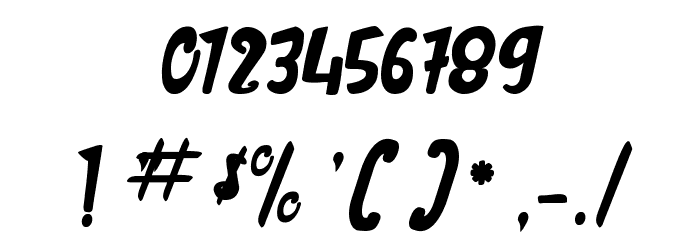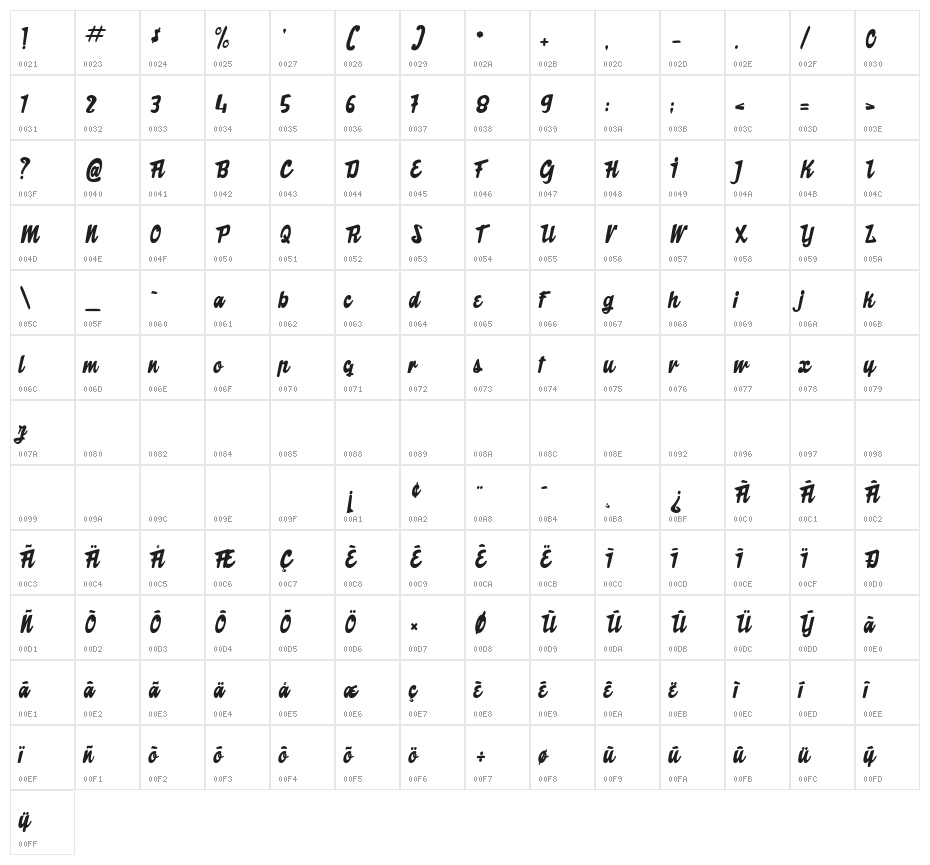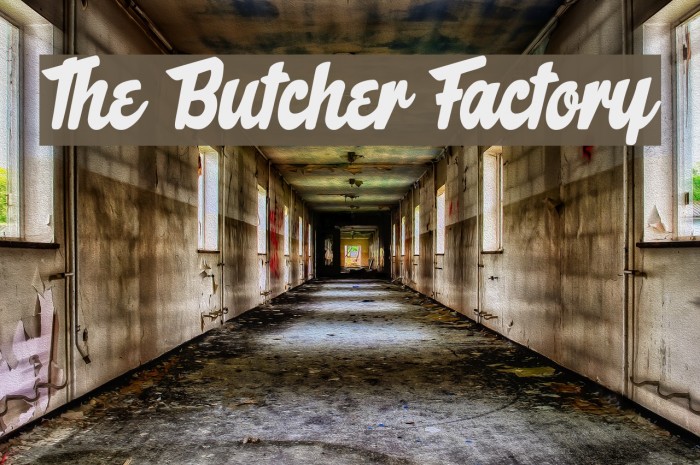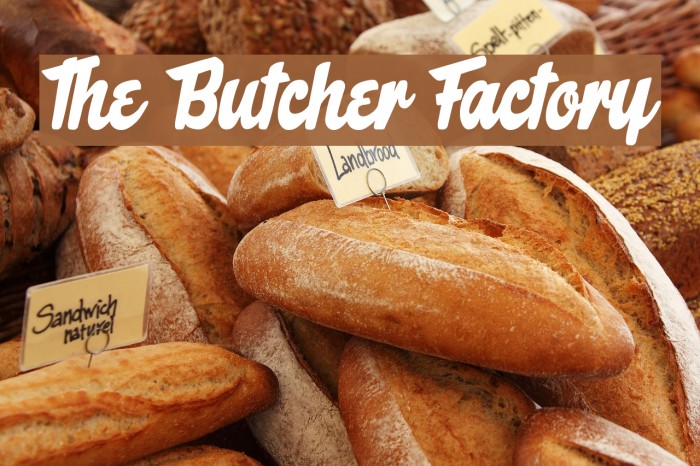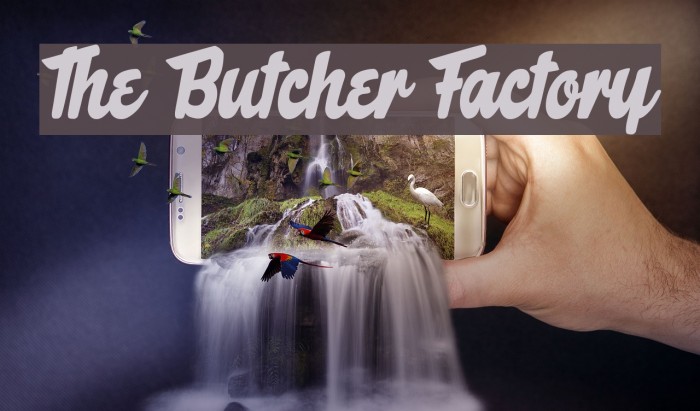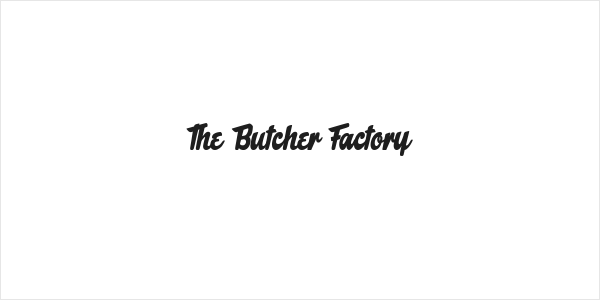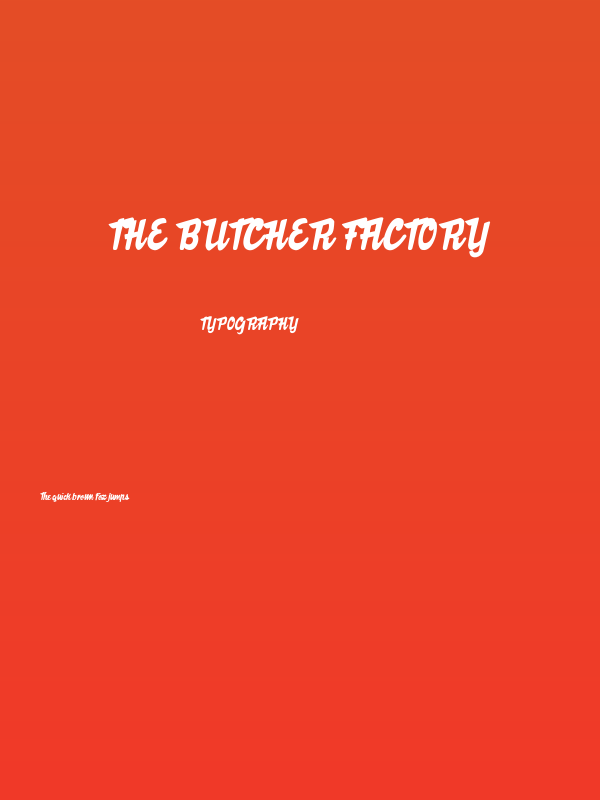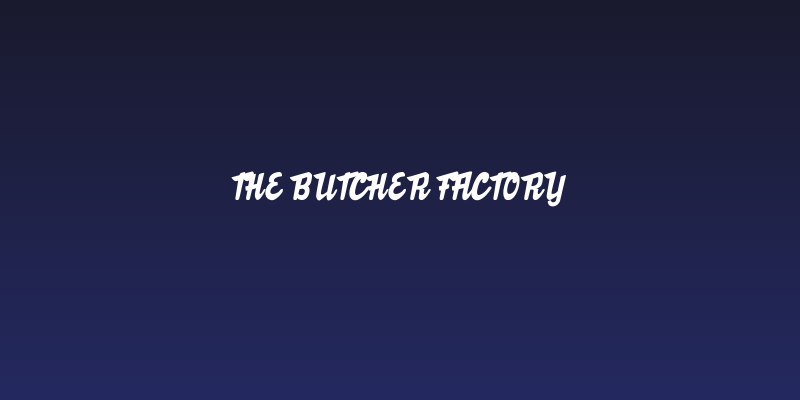
The Butcher Factory Font
The Butcher Factory Description
This font features a bold and dynamic script style with a strong presence. The letters are connected in a flowing manner, giving it a sense of movement and energy. The uppercase letters are particularly striking, with sharp angles and a slightly slanted orientation that adds to its boldness. The lowercase letters maintain the same energetic flow, creating a cohesive look throughout. The numerals are consistent with the overall style, featuring the same bold and connected design. Special characters are included, maintaining the font's distinctive style. This font is perfect for projects that require a strong, impactful visual statement.